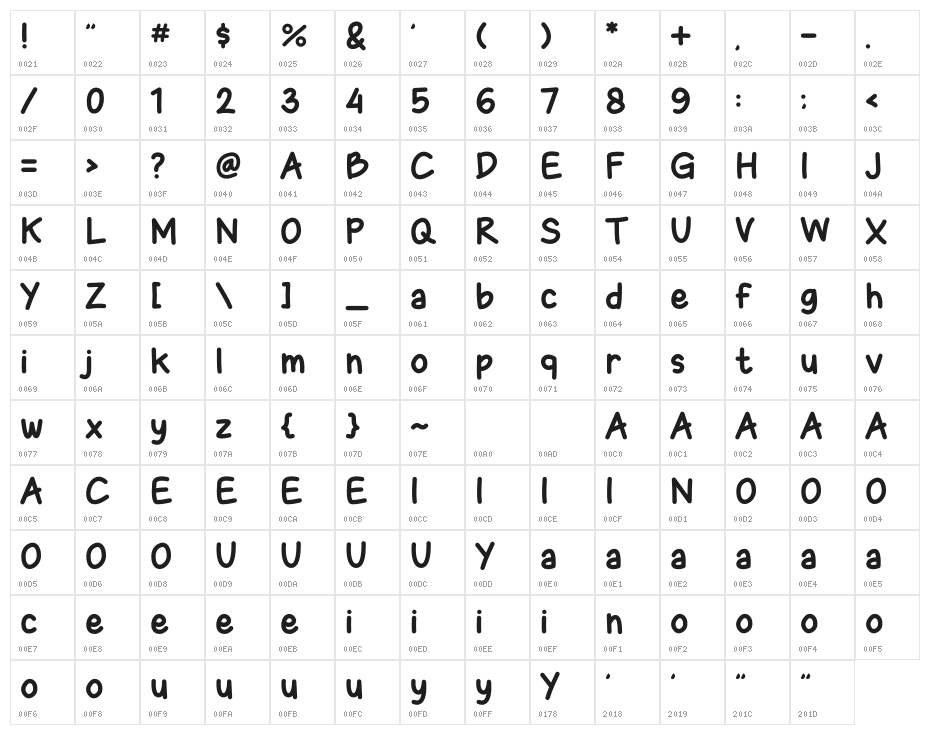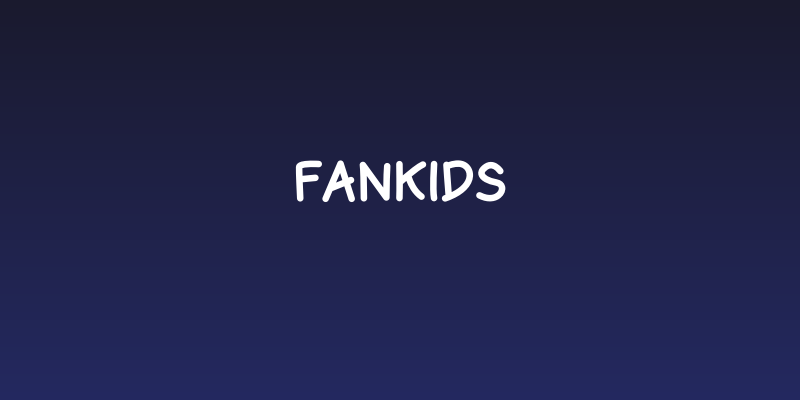
FanKids Font
FanKids Description
This playful and rounded font exudes a youthful and energetic vibe, making it ideal for projects aimed at children or those seeking a fun, informal look. The characters are bold and slightly irregular, adding a hand-drawn feel that enhances its charm. The uppercase and lowercase letters are well-proportioned, with a consistent stroke width that maintains readability. Numbers and special characters are designed with the same playful aesthetic, ensuring a cohesive appearance across all text elements.
| Overall Style | Playful |
| Use Case | Headlines, Logos, Informal Text |
| Proposed Projects | Ideal for children's books, educational materials, playful branding, and informal invitations. |